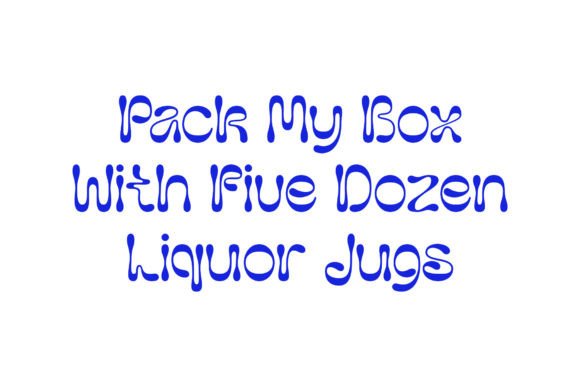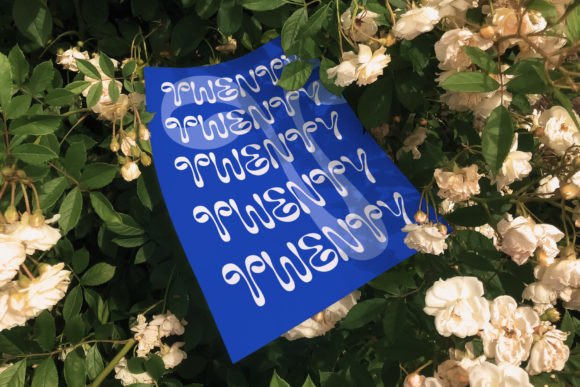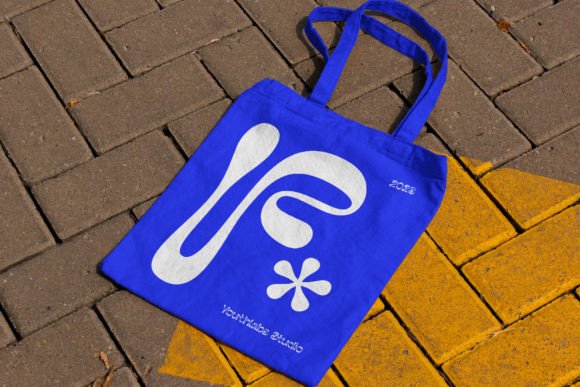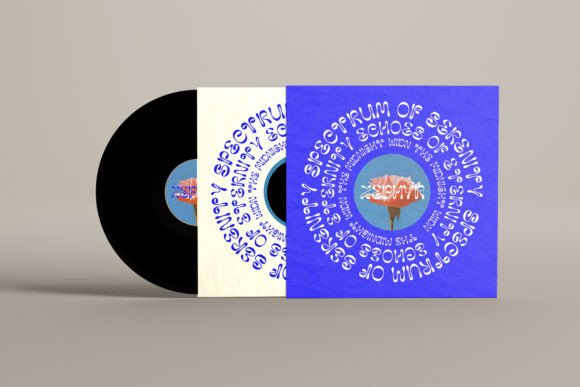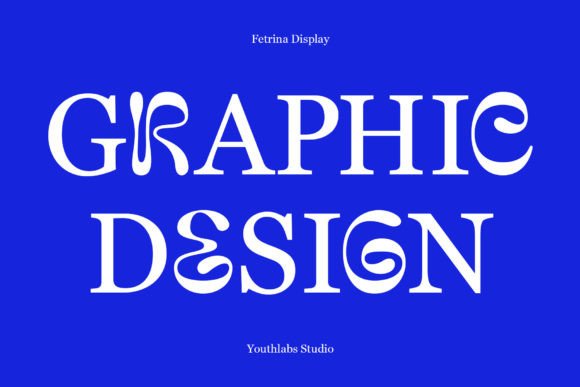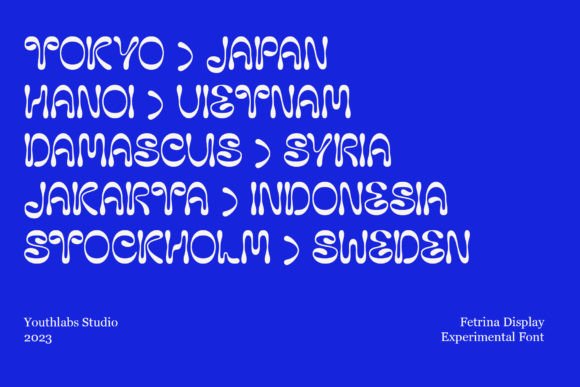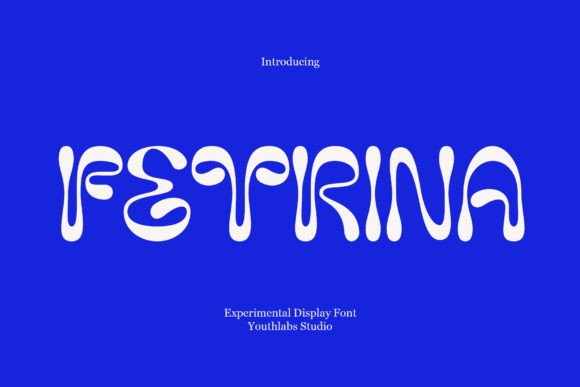
Introducing Fetrina Font: A Modern Take on 90s Trends
In the world of typography, font styles come and go, but some manage to stand the test of time. Fetrina Font is one such example, drawing inspiration from the iconic trends of the 1990s while maintaining a remarkably modern aesthetic. This innovative font is designed to offer flexibility and versatility, making it an excellent choice for designers, crafters, and marketers looking to elevate their brand headlines, marketing materials, and design projects.
The Inspiration Behind Fetrina
Fetrina Font pays homage to the 1990s, an era known for its bold, playful, and expressive design trends. However, instead of merely replicating the past, Fetrina’s creators have skillfully adapted these retro elements to suit contemporary tastes. The result is a font that feels both nostalgic and refreshingly modern.
Design Characteristics of Fetrina
One of the defining features of Fetrina Font is its use of contrasting circles. This distinctive design element adds a touch of sophistication and elegance, setting Fetrina apart from more traditional fonts. The contrasting circles also contribute to the font’s flexibility, allowing it to be used in a wide range of design applications, from bold headlines to more intricate marketing materials.
So, why should designers and crafters choose Fetrina Font for their projects? Here are just a few compelling reasons:
- Versatility: Fetrina’s unique design makes it suitable for various applications, including brand headlines, marketing materials, and other design needs.
- Modern Aesthetic: Despite its 90s inspiration, Fetrina boasts a remarkably modern look and feel, ensuring your designs will stand out in a crowded marketplace.
- Flexibility: The font’s contrasting circles allow for a high degree of flexibility, making it easy to adapt to different design contexts.
Fetrina Font’s versatility makes it an excellent choice for a wide range of design applications. Here are a few ideas to get you started:
- Brand Headlines: Use Fetrina to create bold, eye-catching headlines that capture the essence of your brand.
- Marketing Materials: From brochures to flyers, Fetrina’s modern aesthetic and flexibility make it perfect for various marketing materials.
- Digital Designs: Fetrina’s clean lines and elegant design elements translate beautifully to digital platforms, including websites, social media graphics, and more.
In conclusion, Fetrina Font is a unique and versatile typography solution that successfully blends 90s nostalgia with modern style. Its distinctive design elements, flexibility, and wide range of applications make it an excellent choice for designers, crafters, and marketers seeking to elevate their brand and design projects. Try Fetrina Font today and discover how it can bring a fresh perspective to your work!